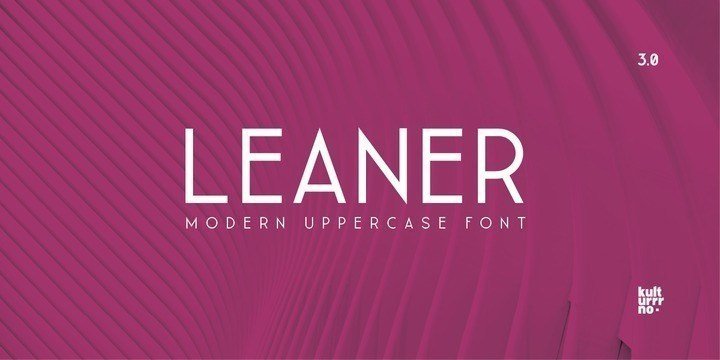
Leaner Sans Serif Font Free
Introducing you a new sans serif font named Leaner Font. Leaner is a multi-weight, minimalist, all caps sans serif font that can be used for a wide range of projects such as logo designs, branding, editorials, wedding invitations, social media posts, and so much more!